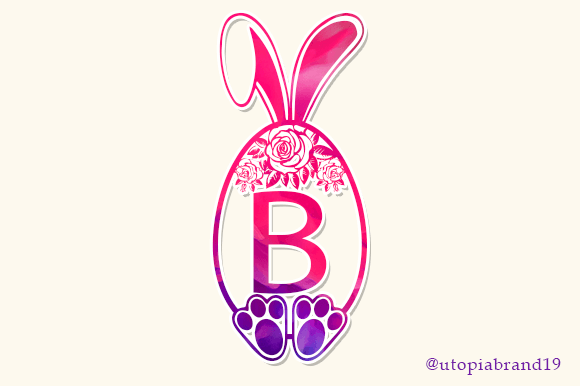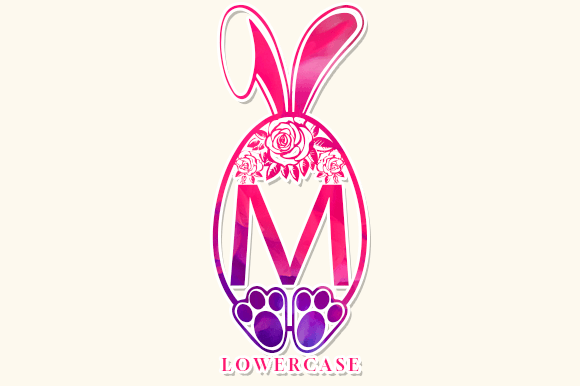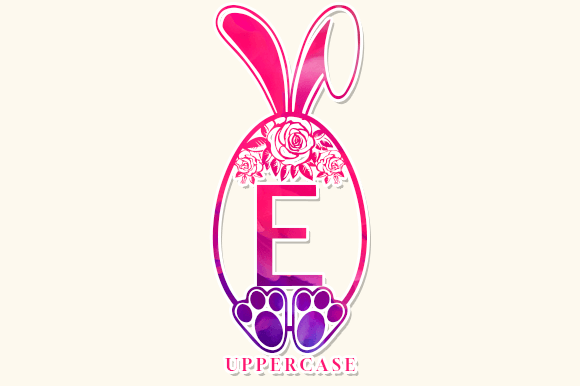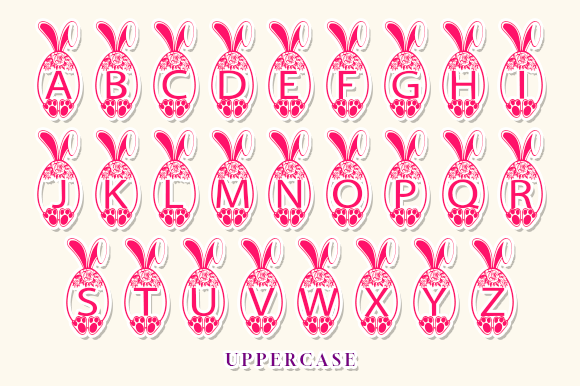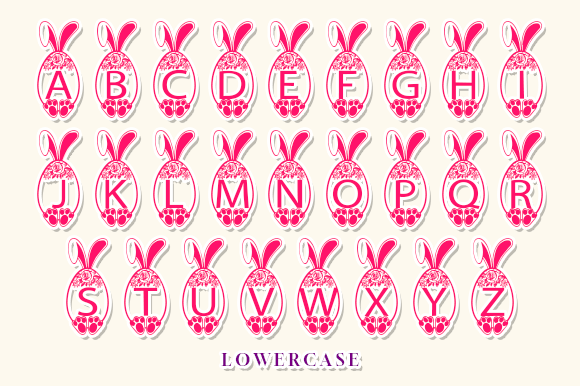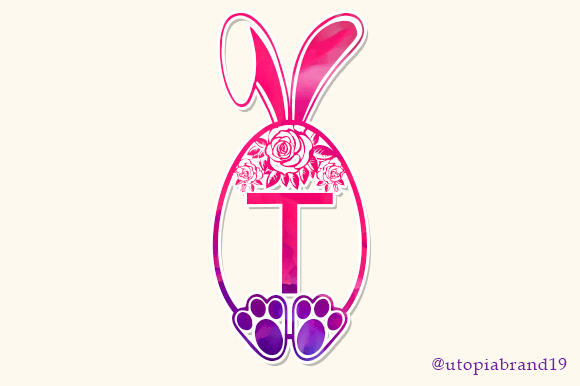
Spring into Design with the Easter Bunny Rose Font
As a designer, there’s nothing quite like the feeling of stumbling upon the perfect font to bring your creative vision to life. It’s that moment when the words start flowing, and your ideas begin to take shape. For me, it was when I discovered the Easter Bunny Rose Font – an elegant decorative font that’s perfect for adding a touch of whimsy and romance to any design.
This beautiful font is designed to help you create stunning pieces that will make your clients swoon. With its lovely ornaments and authentic feel, the Easter Bunny Rose Font is ideal for crafting gorgeous wedding invitations, beautiful stationery art, eye-catching social media posts, and cute greeting cards. As a designer, you’ll love its versatility and the endless possibilities it offers to add a personal touch to your work.
Easter Bunny Rose Font Key Features
- Font Family: Easter Bunny Rose, a unique and playful font designed for Easter and spring-themed projects.
- Unique Characteristics: The Easter Bunny Rose font features whimsical and hand-drawn elements, including Easter eggs, bunnies, and floral motifs, making it ideal for Easter and spring-themed designs.
Easter Bunny Rose Font Review
Overall, I think the Easter Bunny Rose Font is a cute and playful addition to any design project. It’s perfect for Easter-themed designs, spring-related content, or even just for adding a touch of whimsy to a design.
- ✨ Unique and creative design: The Easter Bunny Rose Font is unlike any other font I’ve seen. Its playful and whimsical design makes it stand out from the crowd.
- ✨ Easy to read: Despite its unique design, the font is still easy to read, making it a great choice for body text or headings.
- ✨ Perfect for Easter-themed designs: As the name suggests, this font is perfect for Easter-themed designs, making it a great choice for holiday-related content.
- ⚠️ Limited versatility: While the font is great for Easter-themed designs, it may not be as versatile for other types of content.
- ⚠️ May not be suitable for formal designs: The playful and whimsical design of the font may not be suitable for formal or professional designs.
Overall, I think the Easter Bunny Rose Font is a fun and creative addition to any design project. While it may have some limitations, it’s perfect for Easter-themed designs and adds a touch of whimsy to any design.
To get the most out of the Easter Bunny Rose Font, experiment with different font sizes, colors, and styles. You can also combine it with other fonts to create a unique look. Use it for invitations, greeting cards, or social media posts to add a touch of whimsy and festivity.
The Easter Bunny Rose Font is ideal for:
- Easter-themed invitations and greeting cards.
- Social media posts and graphics.
- Wedding invitations and decorations.
- Children’s party decorations and invitations.
Alternatives to Easter Bunny Rose Font
Great Vibes is a beautiful, hand-drawn font that is perfect for creating a whimsical and playful atmosphere. It is ideal for use in children’s book illustrations, wedding invitations, and other creative projects. Great Vibes is more elegant and refined compared to Easter Bunny Rose Font, which is more cartoonish and cursive.
Carolyna Pro is a modern, elegant script font that is great for use in luxury brands, high-end fashion, and upscale weddings. It has a more sophisticated and refined feel compared to Easter Bunny Rose Font, which is more playful and whimsical. Carolyna Pro is ideal for use in formal invitations, logos, and branding materials.